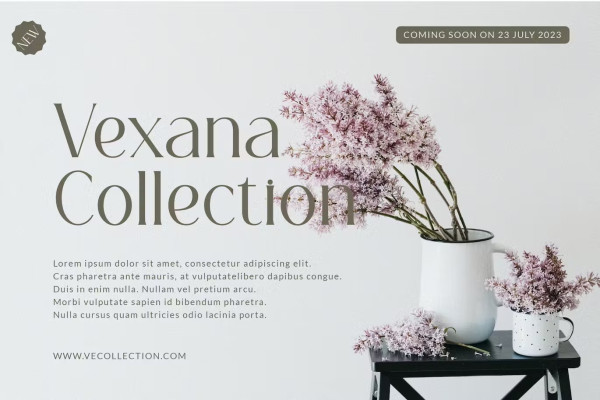
Magice Font
Magice Font is a modern, sleek and elegant serif font that is also absolutely beautiful. Suitable for logos, magazines, social media and many other things. For those who need a modern, classy, stylish and elegant touch in their designs, this font is made especially for you! Easy to combine with a variety of projects that are simply amazing.